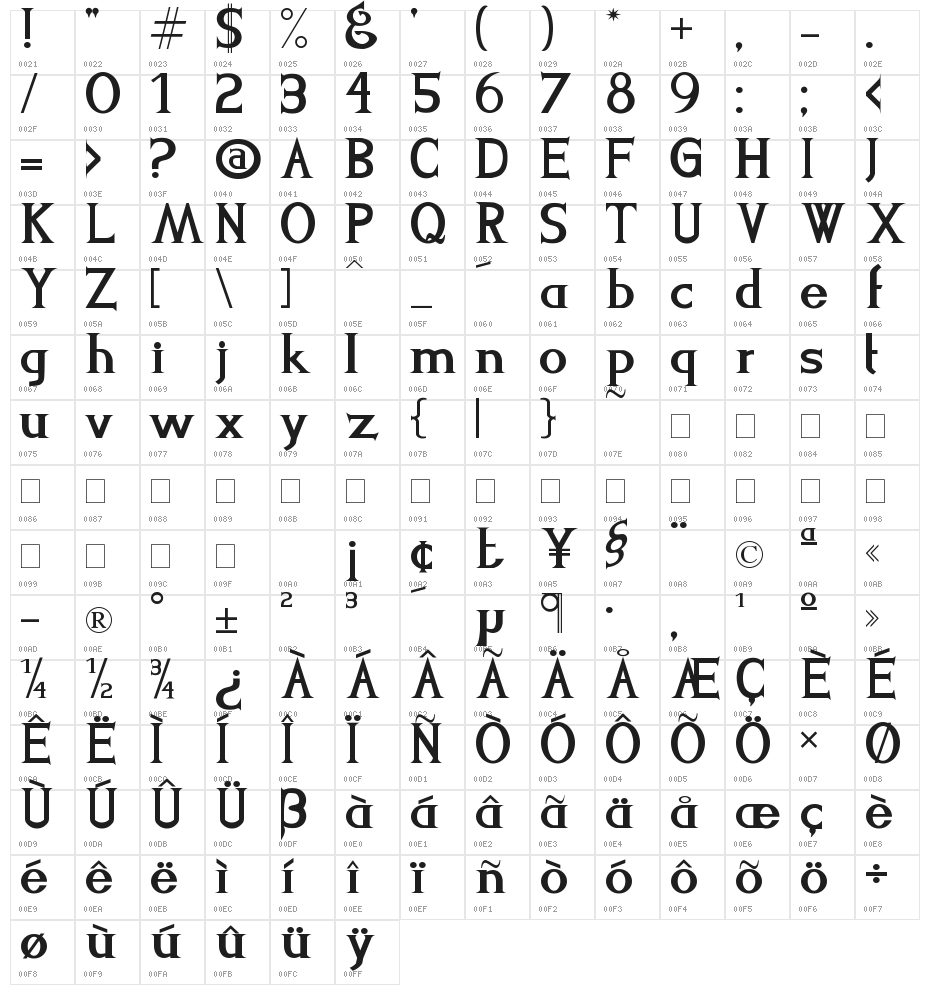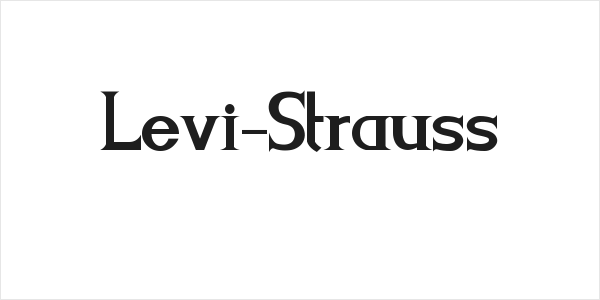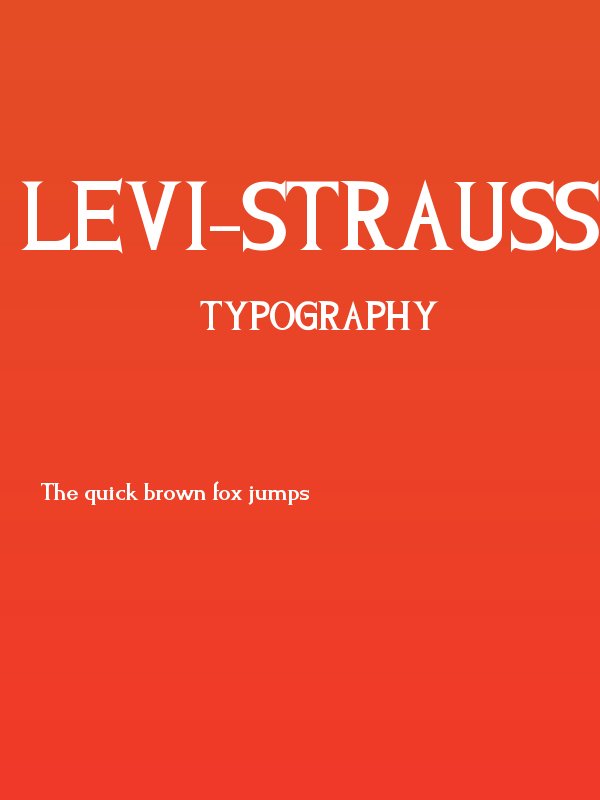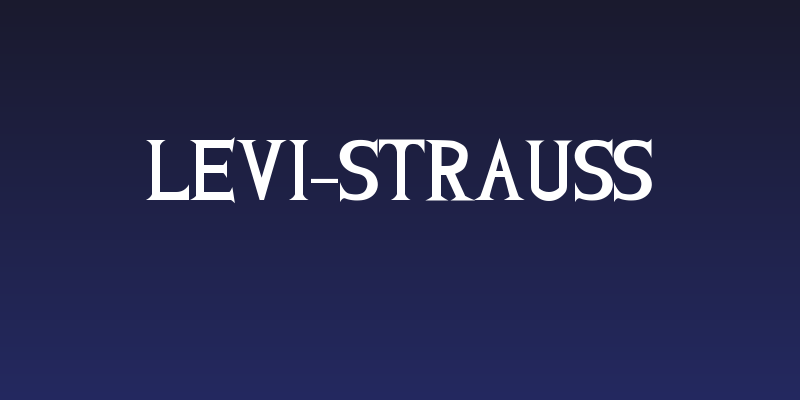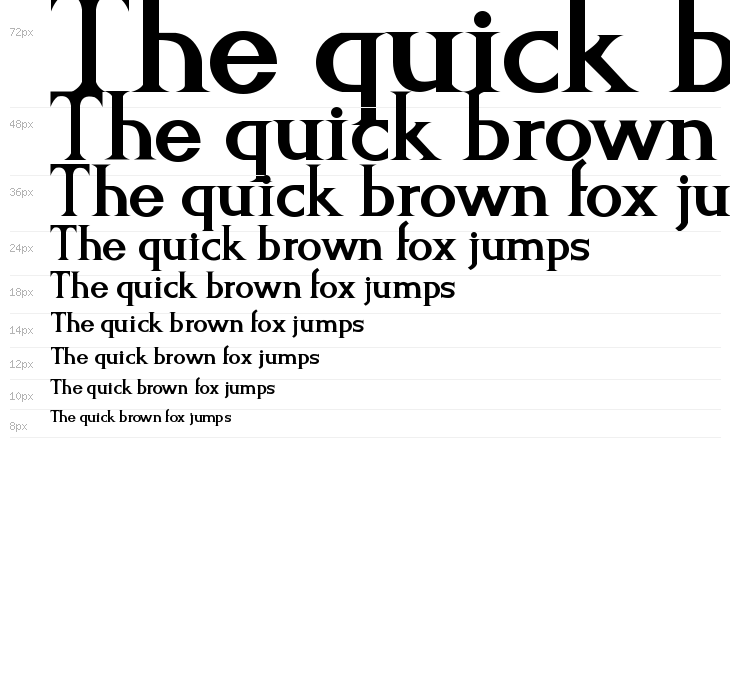
Levi-Strauss Font
Levi-Strauss Description
This font features a bold and striking design with high contrast between thick and thin strokes, giving it a dramatic and elegant appearance. The serif style is prominent, with sharp, angular serifs that add a touch of sophistication and formality. The uppercase letters are tall and commanding, while the lowercase letters maintain a consistent style with unique flourishes, particularly noticeable in characters like 'g' and 'y'. The numerals are robust and clear, ensuring readability. Special characters are designed with the same attention to detail, making them stand out. Overall, this font exudes a classic yet modern feel, suitable for various formal and creative applications.
| Use Case | Headlines, Logos, Editorial design |
| Proposed Projects | Ideal for branding, editorial design, book covers, and luxury product packaging. |